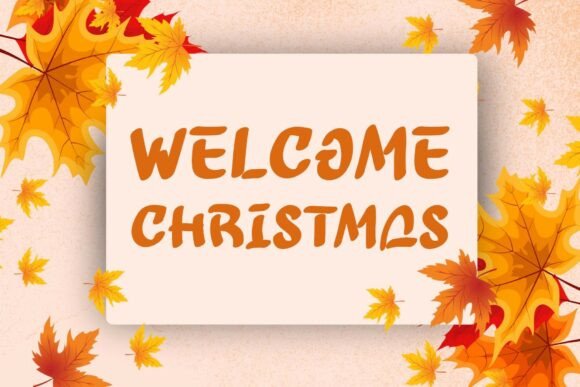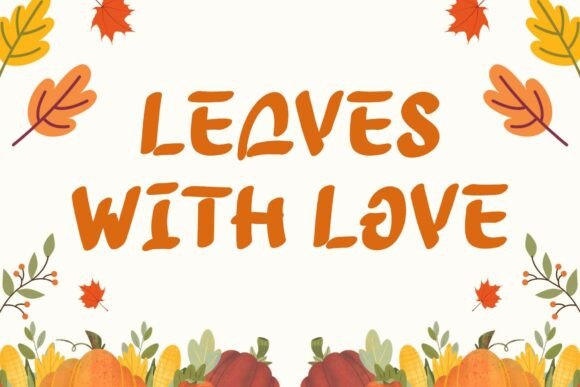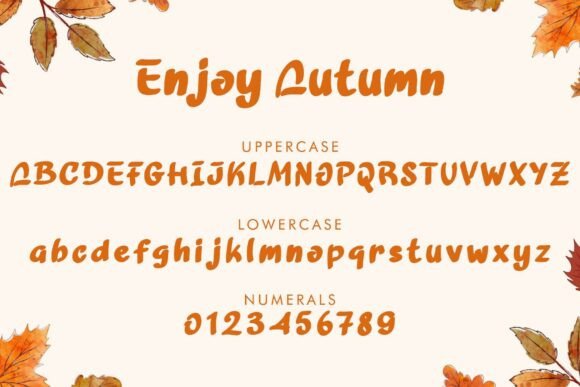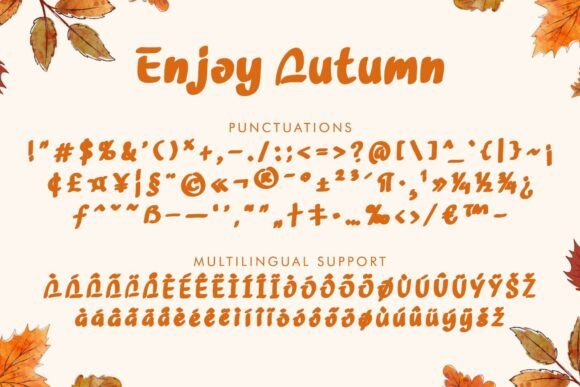
Enjoy Autumn Font: Capturing the Cozy Charm of the Season
As the seasons change and autumn leaves begin to fall, designers and crafters are on the lookout for fonts that evoke the warm, cozy feelings of this special time of year. Look no further than Enjoy Autumn, a playful and bold display font that’s perfect for seasonal projects, posters, invitations, and branding that needs a rustic touch.
Inspired by the Beauty of Autumn
Enjoy Autumn is a font that’s deeply rooted in the sights and feelings of the season. Its quirky, rounded letterforms and whimsical style are inspired by the falling leaves, crisp autumn air, and cozy warmth of a crackling fire. The result is a font that’s both fun and inviting, with a personality that’s sure to shine through in any design.
Perfect for Seasonal Projects
Whether you’re designing for Thanksgiving, a fall festival, or cozy apparel, Enjoy Autumn is the perfect font to bring the heart of autumn to life. Its bold, playful style makes it ideal for headlines, titles, and short phrases, while its whimsical charm adds a touch of personality to any design.
Key Features of Enjoy Autumn Font
- Playful and bold display font: Enjoy Autumn is a font that’s designed to make a statement, with bold, rounded letterforms that are sure to grab attention.
- Whimsical style: The font’s quirky, hand-drawn feel adds a touch of personality to any design, making it perfect for seasonal projects and branding.
- Perfect for autumn-themed designs: From Thanksgiving to fall festivals, Enjoy Autumn is the perfect font to evoke the warm, cozy feelings of the season.
- Easy to read: Despite its bold, playful style, Enjoy Autumn is easy to read, even at smaller sizes.
Using Enjoy Autumn in Your Designs
Enjoy Autumn is a versatile font that can be used in a variety of design projects, including:
- Posters and flyers: Use Enjoy Autumn to create eye-catching posters and flyers for seasonal events, such as fall festivals, Halloween parties, and Thanksgiving celebrations.
- Invitations and greeting cards: Add a touch of autumn charm to your invitations and greeting cards with Enjoy Autumn’s whimsical style.
- Branding and packaging: Use Enjoy Autumn to add a rustic, seasonal touch to your branding and packaging, perfect for autumn-themed products and promotions.
- Cozy apparel and accessories: Enjoy Autumn is perfect for designing cozy apparel and accessories, such as sweaters, hats, and scarves.
Why Choose Enjoy Autumn Font?
With so many fonts to choose from, why should you choose Enjoy Autumn for your autumn-themed designs? Here are just a few reasons:
- Unique and eye-catching: Enjoy Autumn’s bold, playful style is sure to grab attention and set your designs apart from the crowd.
- Easy to use: The font is easy to read and works well in a variety of design contexts, from posters to packaging.
- Seasonal charm: Enjoy Autumn captures the warm, cozy feelings of autumn, making it perfect for seasonal projects and branding.